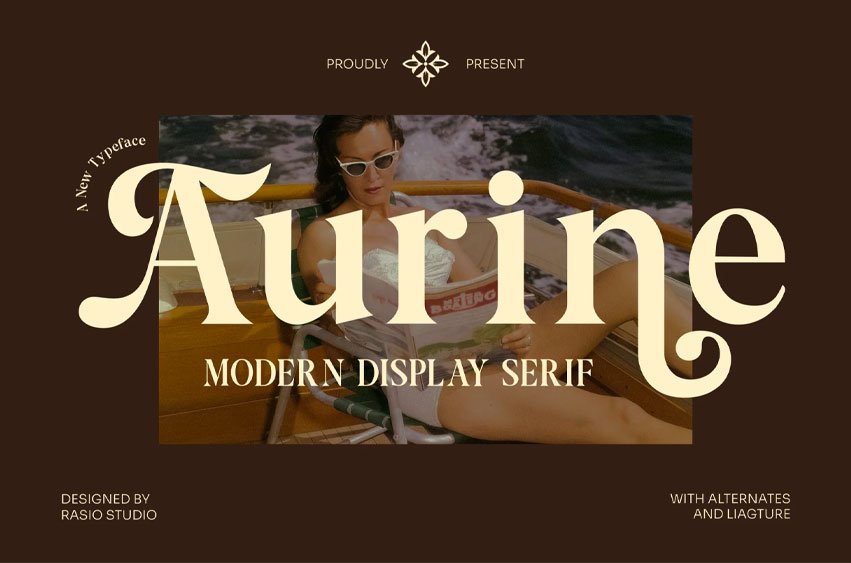
Aurine Font is a sophisticated modern serif font that blends classy elegance with bold personality. Featuring stylish ligatures, graceful alternates, and refined letterforms, it’s perfect for luxury branding, wedding invitations, editorial headlines, premium logos, and upscale packaging. With its multilingual support, serif condensed proportions, and lavish detailing, Aurine works beautifully for professional, feminine, and modern luxury projects. Its elegant, bold strokes and retro serif charm make it a versatile choice for fashion magazines, signature logos, celebration designs, and premium corporate identities.
Relevance and Use Cases are perfect for Luxury branding, fashion magazines, wedding invitations, upscale packaging, editorial design, signature logos, beauty products, celebration stationery, premium corporate identity, multilingual publications, high-end product labels, feminine branding, retro-modern design projects.